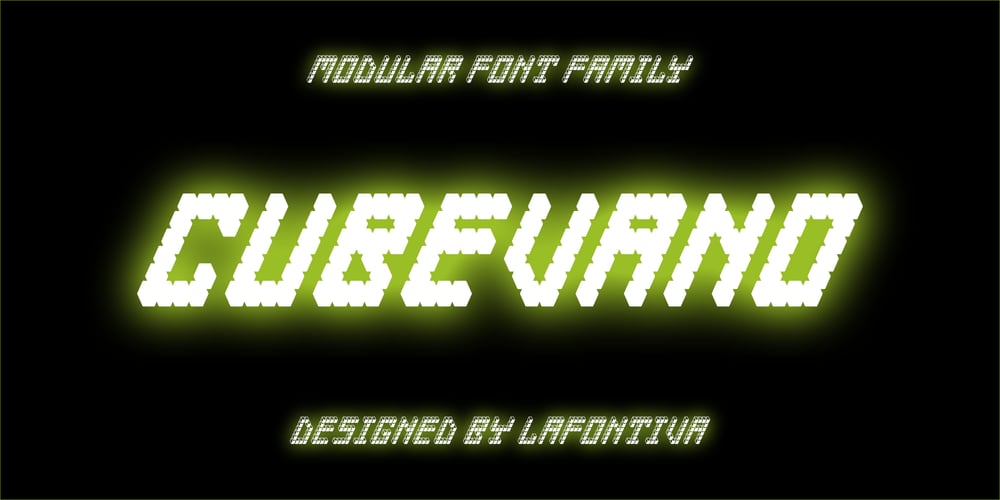
Cubevano Font Family was designed by Michał Kot and published by Lafontiva. Cubevano contains 6 styles and family package options. Cubevano is a geometric, modular display typeface. It is the result of fascination with geometry, impossible objects and work of artists such as Oscar Reutersvärd. Family was created in 6 styles for any type of graphic design, such as logos, covers, posters, signs, shirts, etc. It looks best in large sizes. Cubevano typeface comes with uppercase and lowercase letters, numbers, currencies, punctations and multilingual support.